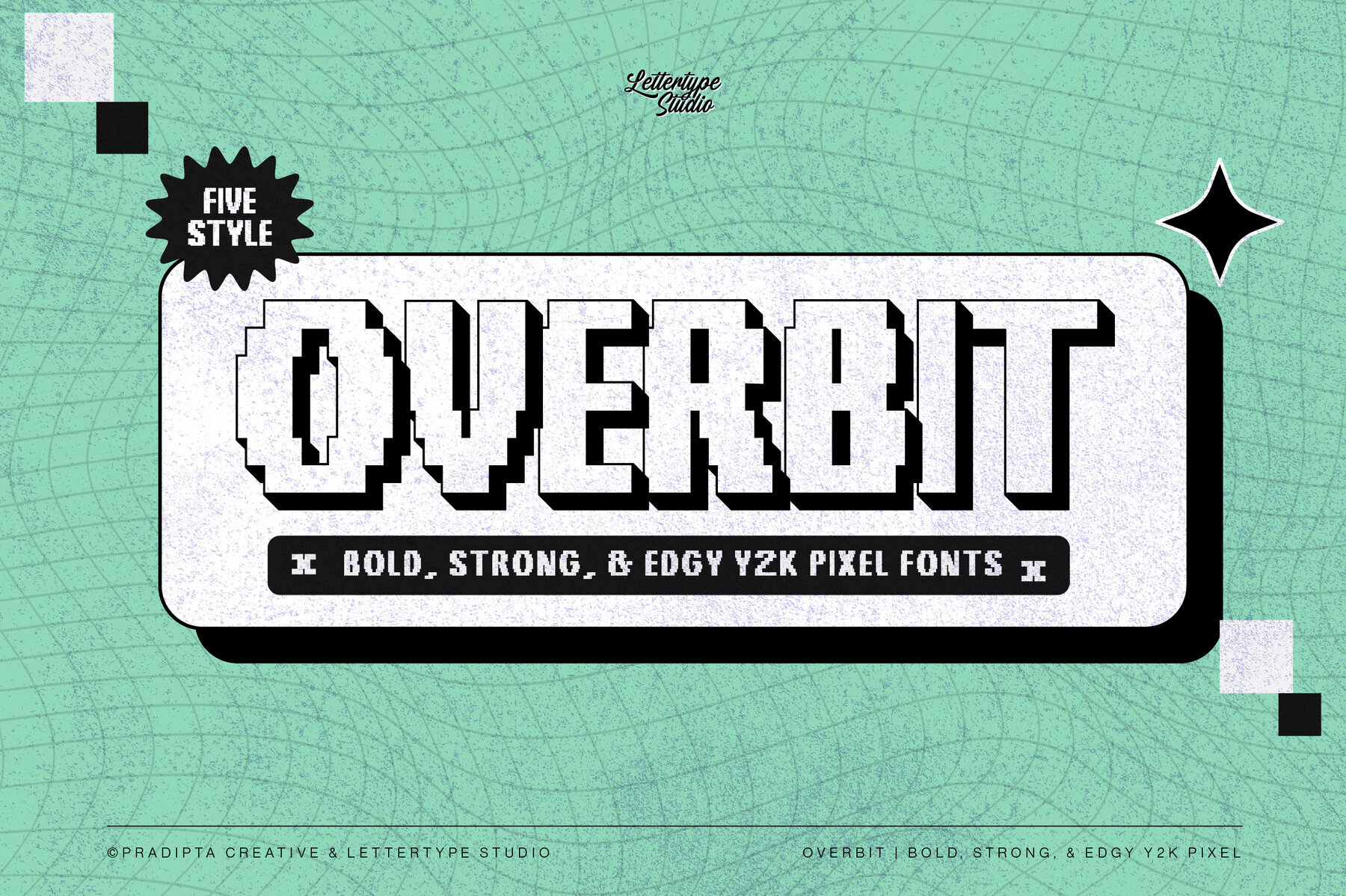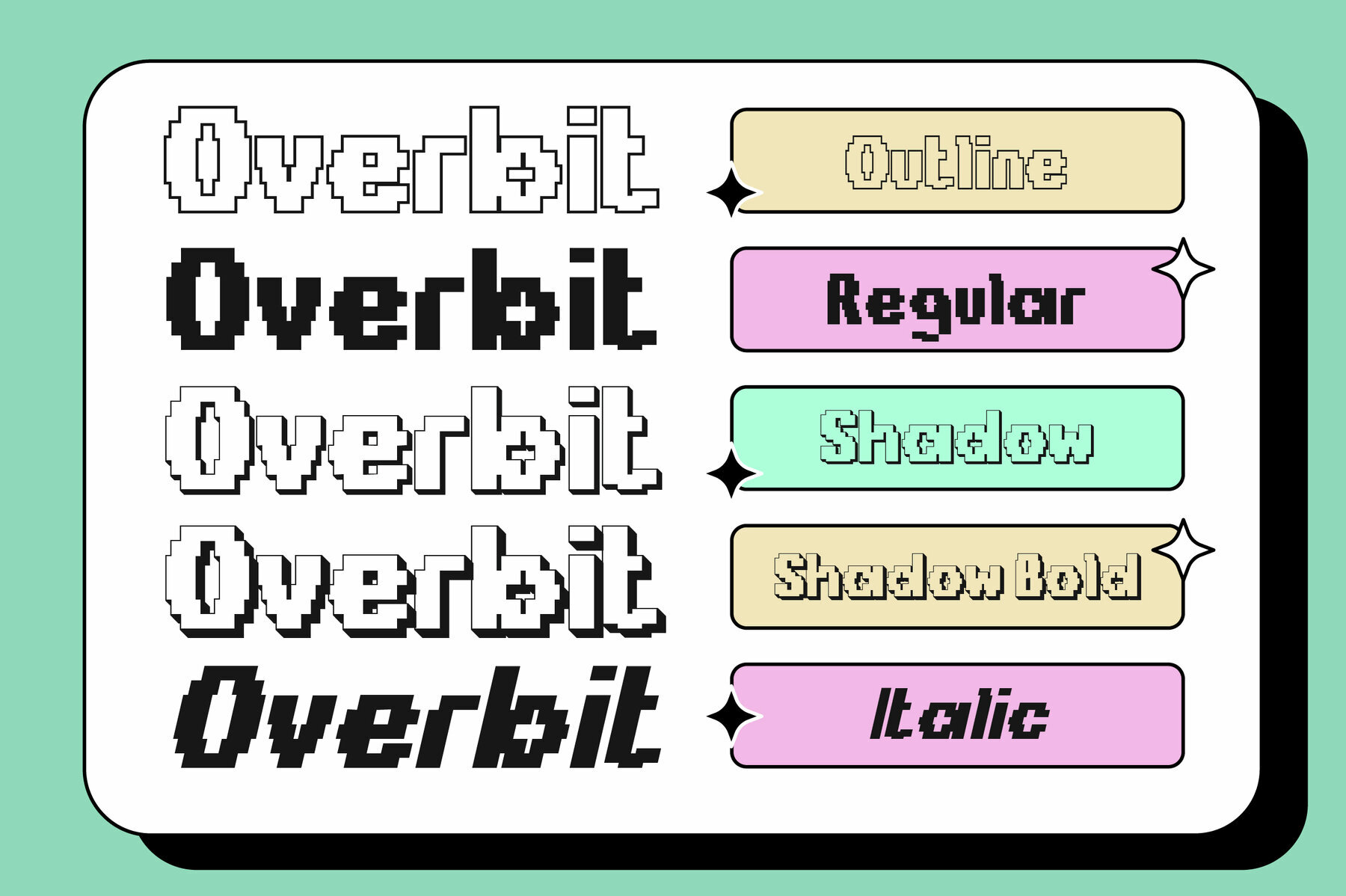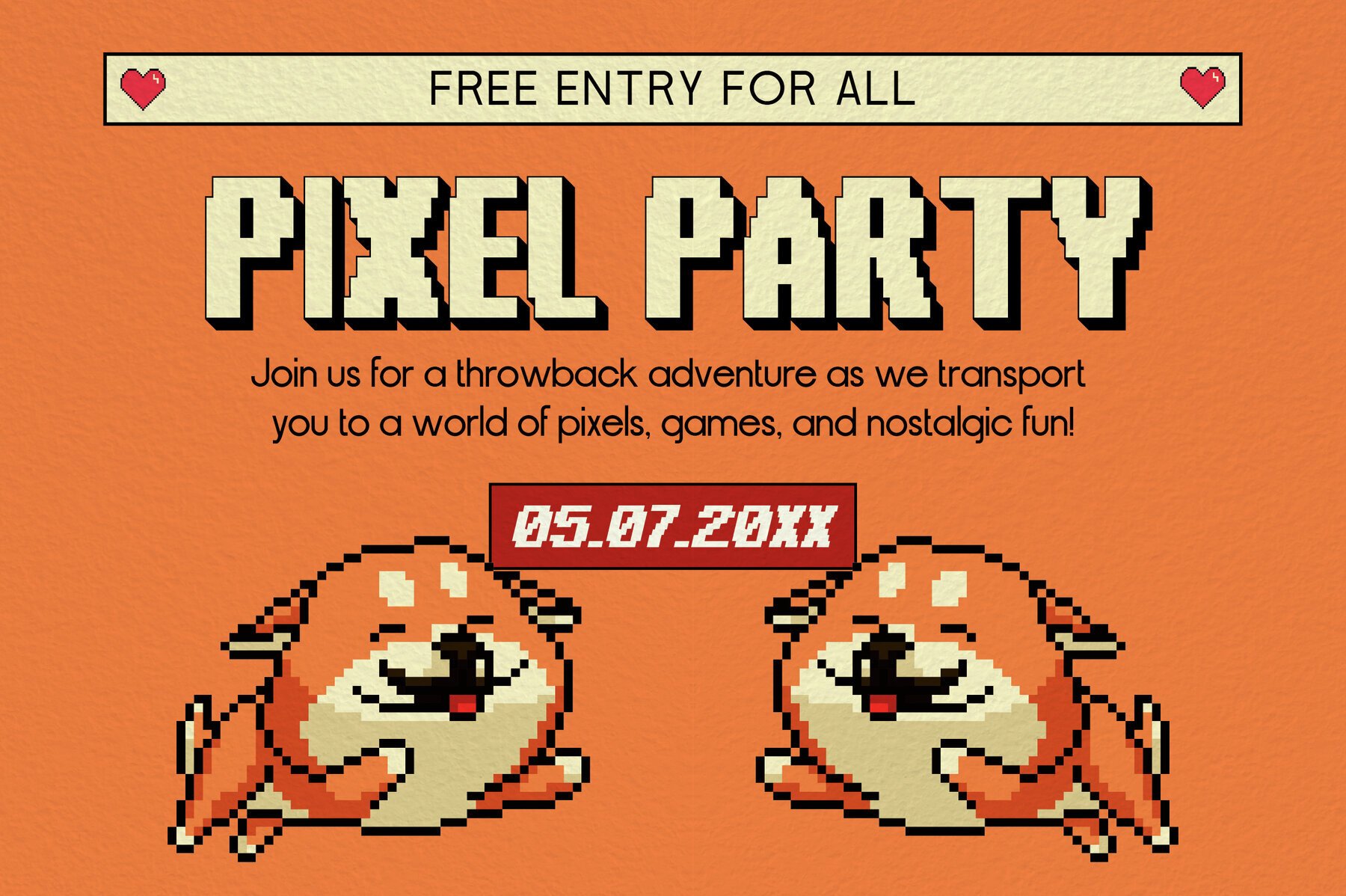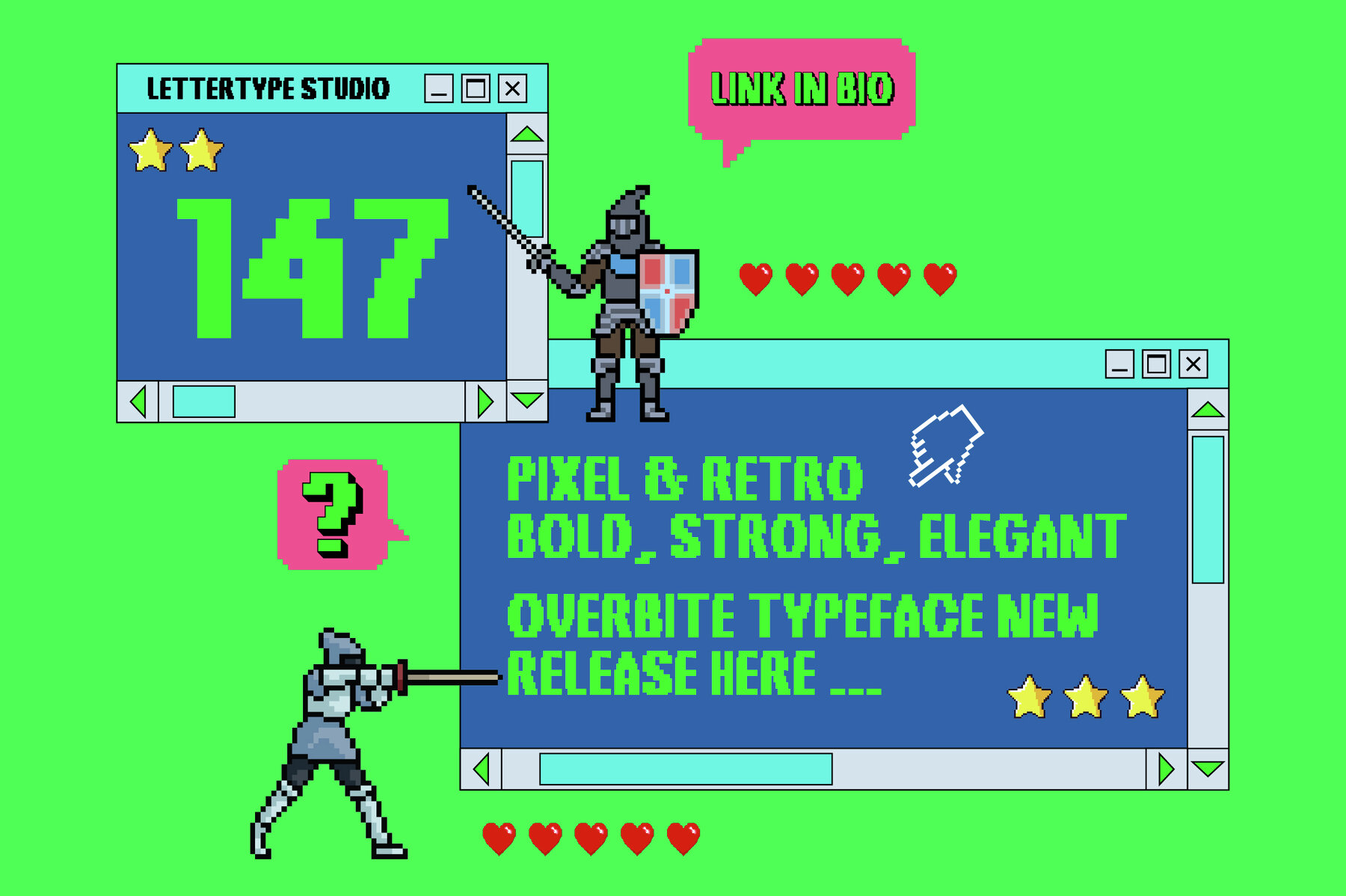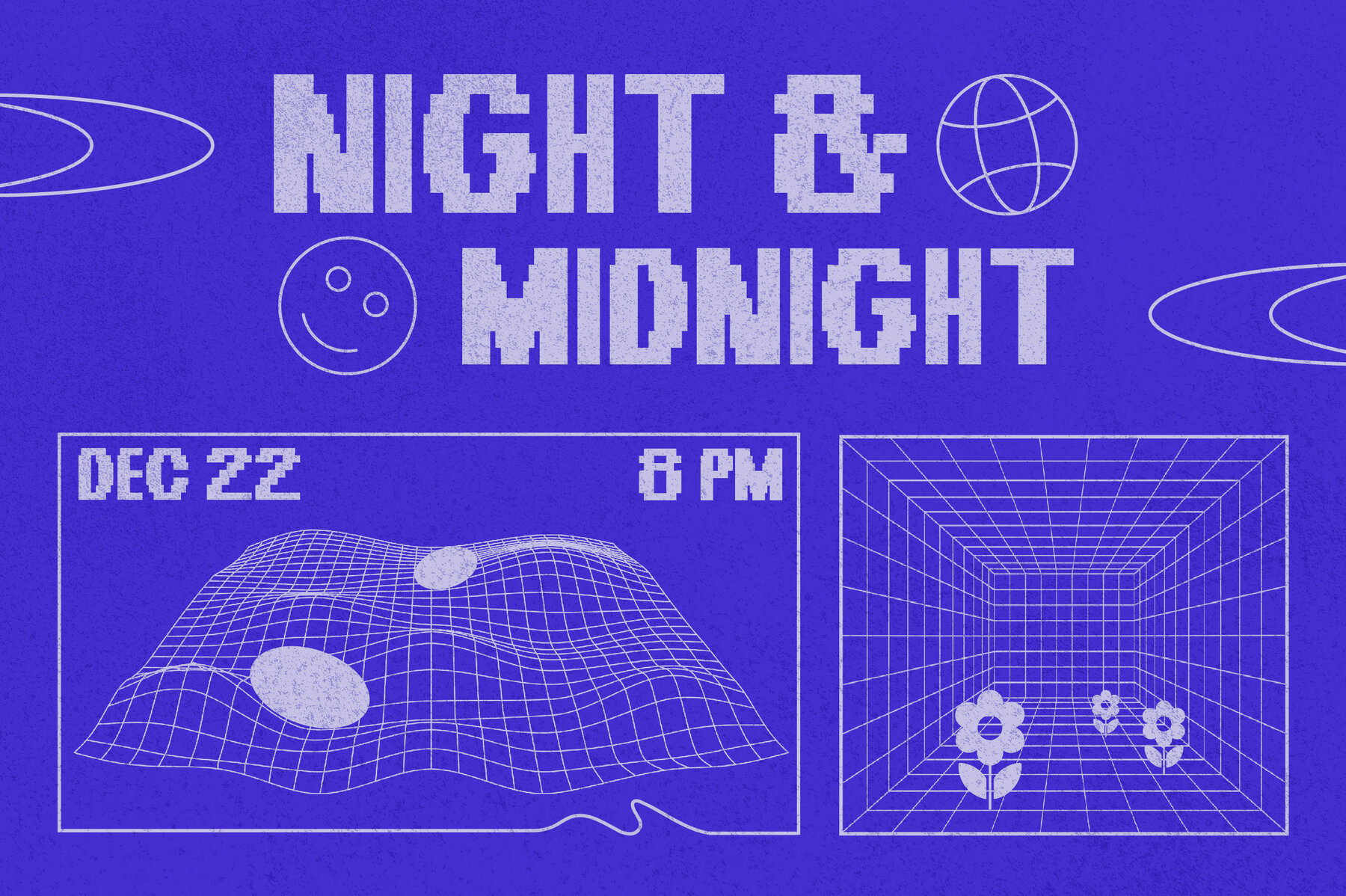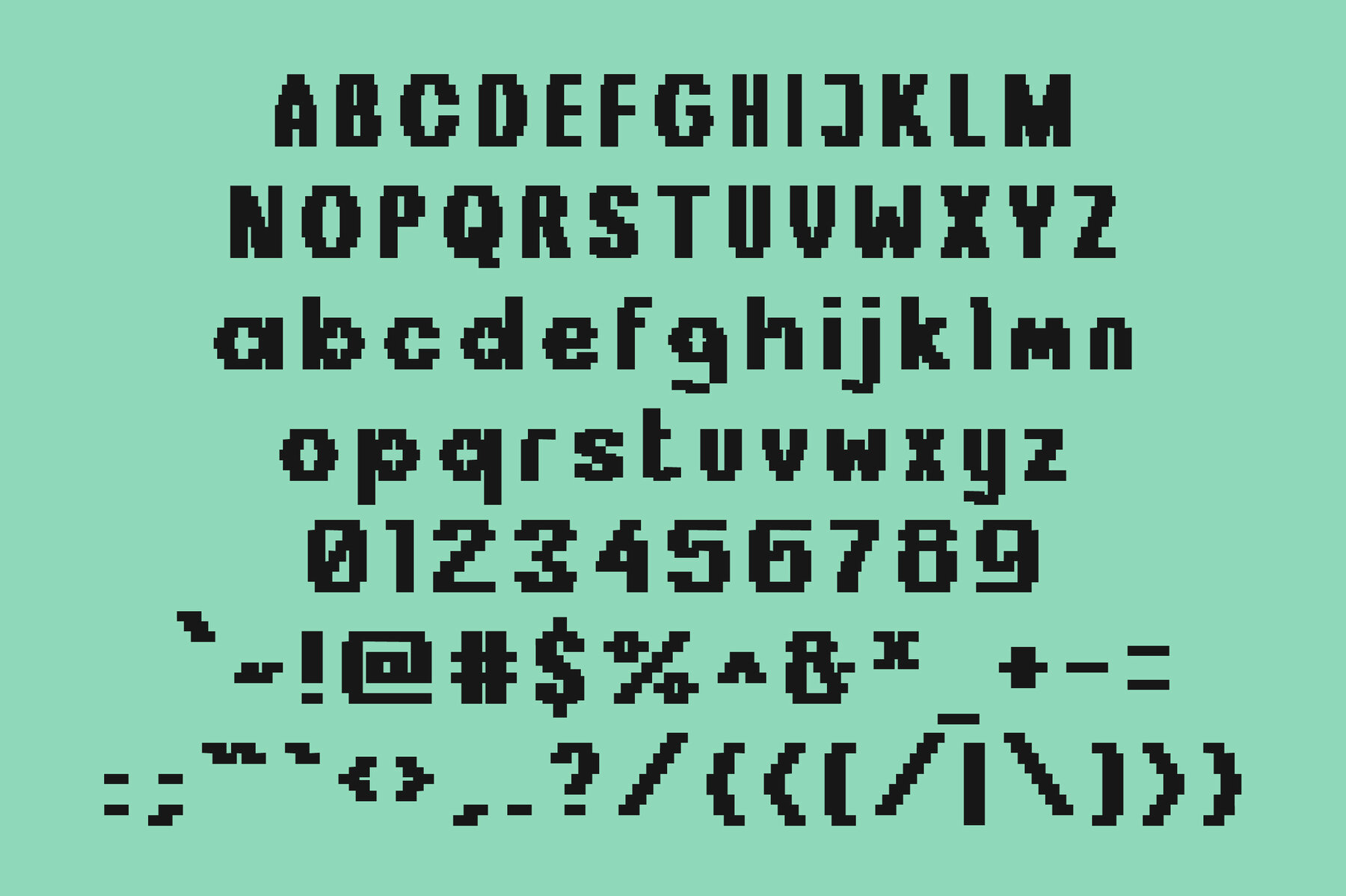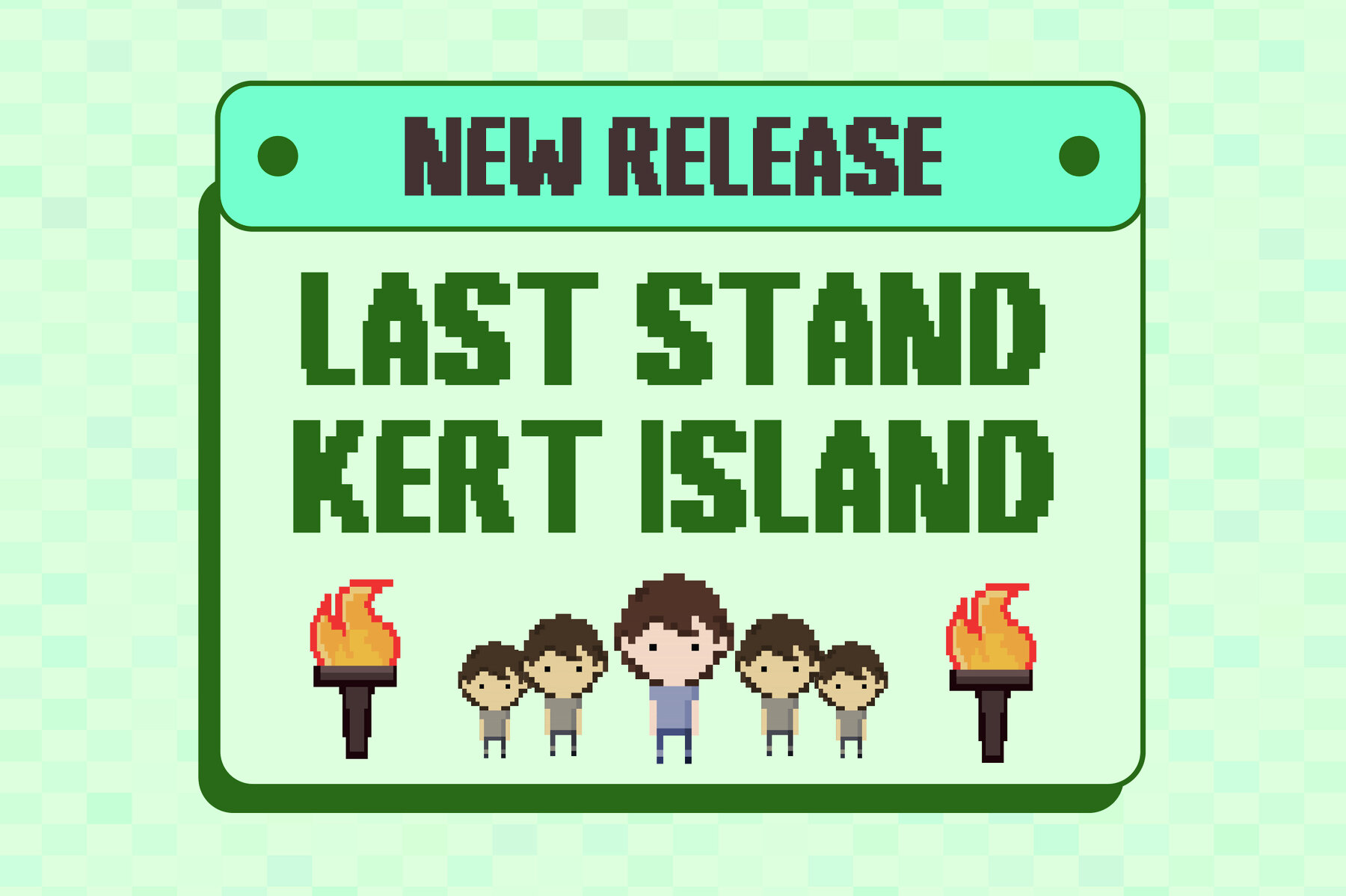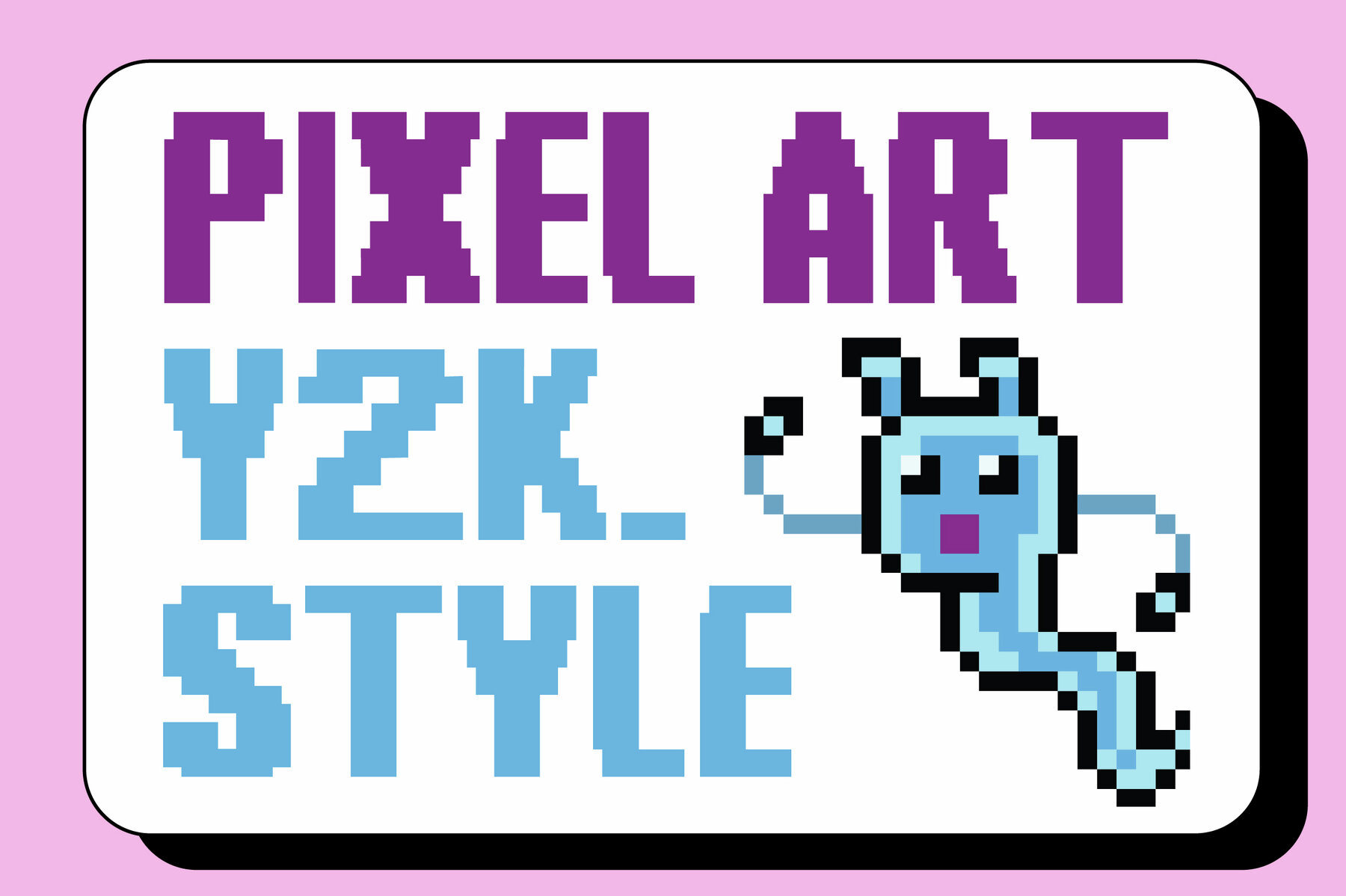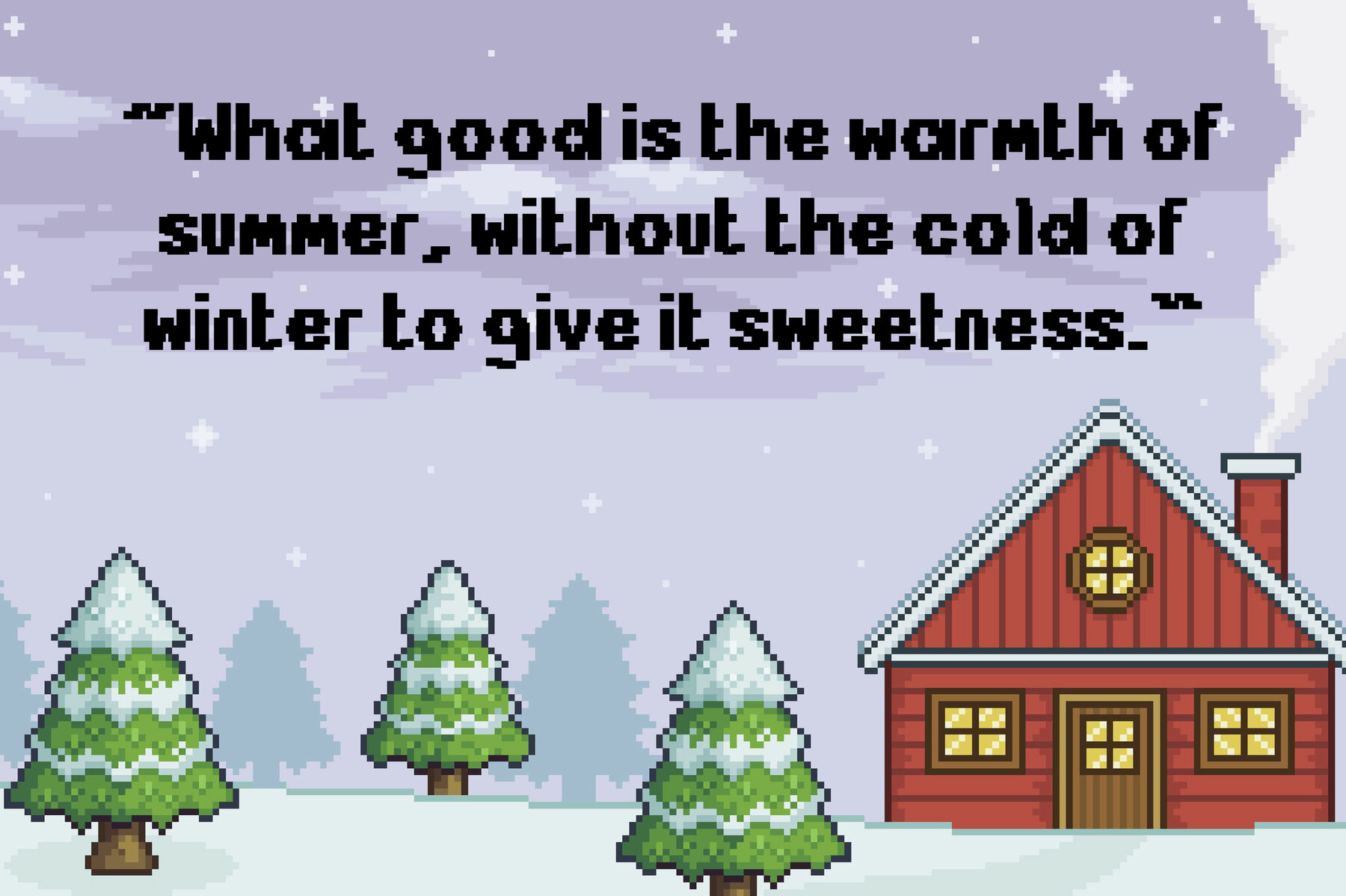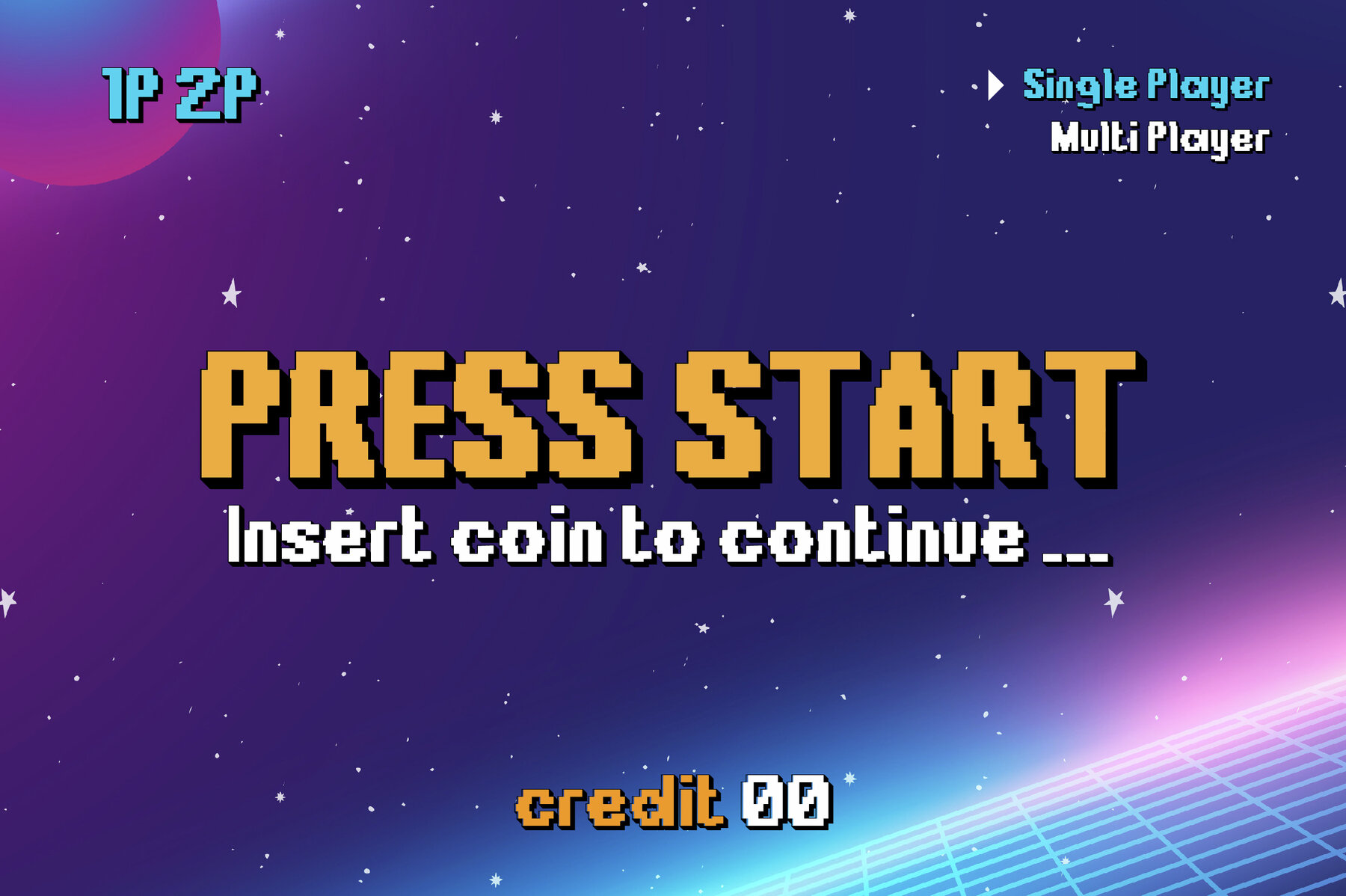
Overbit Font
Channel the retro energy of 80s video games fused with early 2000s futuristic style through Overbit. This dynamic font features five distinct styles: Regular, Outline, Italic, Shadow, and Shadow Bold, offering flexibility and distinctive flair for various creative endeavors. The design of Overbit imbues your projects with playful nostalgia and precise geometric form. Ideal for designers seeking to merge vintage charm with a modern, tech-savvy aesthetic, this font is perfect for posters, gaming interfaces, and digital branding.Overbit: A Bold Pixel Y2K Display Font